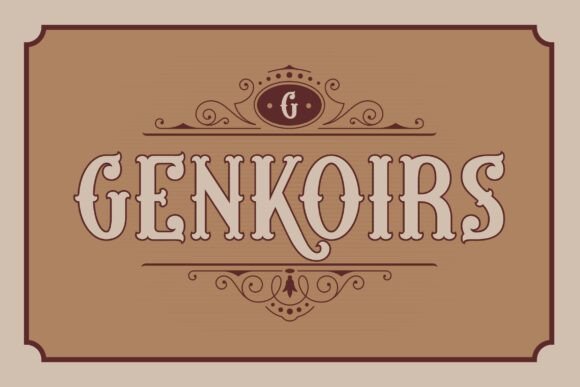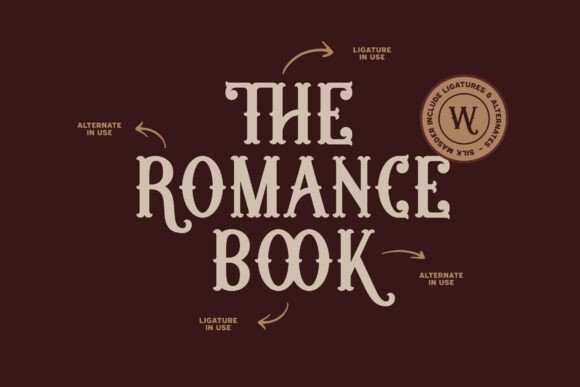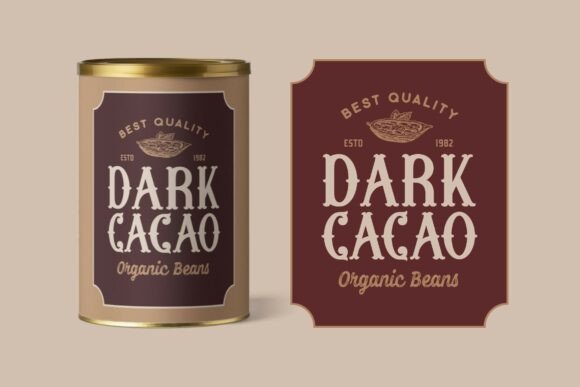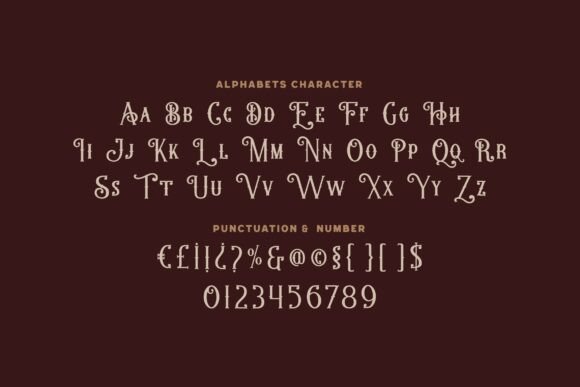
Introduction to Silk Masder Font
Have you ever stumbled upon an old, dusty book in a vintage bookstore, only to be captivated by the elegant typography that adorns its pages? For designers, discovering the perfect font can be just as magical. It’s a moment when creativity sparks, and the possibilities for a project seem endless. One such font that embodies this timeless charm is the Silk Masder Font.
As a valuable addition to any designer’s arsenal, Silk Masder Font offers a unique blend of ornamental serifs, elegant swashes, and smooth curves that give it a romantic and classic look. Its high-quality design makes it an ideal resource for creative projects, from premium packaging and editorial titles to invitations and high-end product labels. With PUA encoding included, designers can easily access all special characters and decorative elements without additional software, making it a free download that’s both versatile and convenient.
Key Features of Silk Masder Font
- High-quality design resource for creative projects, perfect for designers and artists looking for a unique touch.
- High-resolution font, suitable for print and digital applications, ensuring crisp and clear text rendering.
- Unique and elegant design, ideal for luxury branding, fashion, and other high-end creative projects.
Honest Review: Silk Masder Font
I recently came across the Silk Masder Font while searching for a high-quality design resource for a creative project. I must say, I was impressed with its smooth and elegant feel.
- ✨ The font’s transparent background makes it easy to use in various design contexts.
- ✨ The high-quality design ensures that it prints well, even at larger font sizes.
- ⚠️ The font may not be suitable for very large or complex designs, as it can become difficult to read.
- ⚠️ Some users may find the font too elegant or refined, making it less versatile for certain design projects.
Overall, I would recommend the Silk Masder Font for designers looking for a high-quality, elegant font for creative projects. While it may have some limitations, its free download and transparent background make it a valuable addition to any design resource library.
Tips for Getting the Most Out of the Silk Masder Font
For the best results, use the Silk Masder Font on a transparent background to create a high-quality design resource. Experiment with different font sizes, colors, and styles to add depth and visual interest to your creative project.
The Silk Masder Font is ideal for use in logos, branding materials, and other design elements where a unique and stylish font is needed. It’s also a great choice for free download and use in personal or commercial projects.